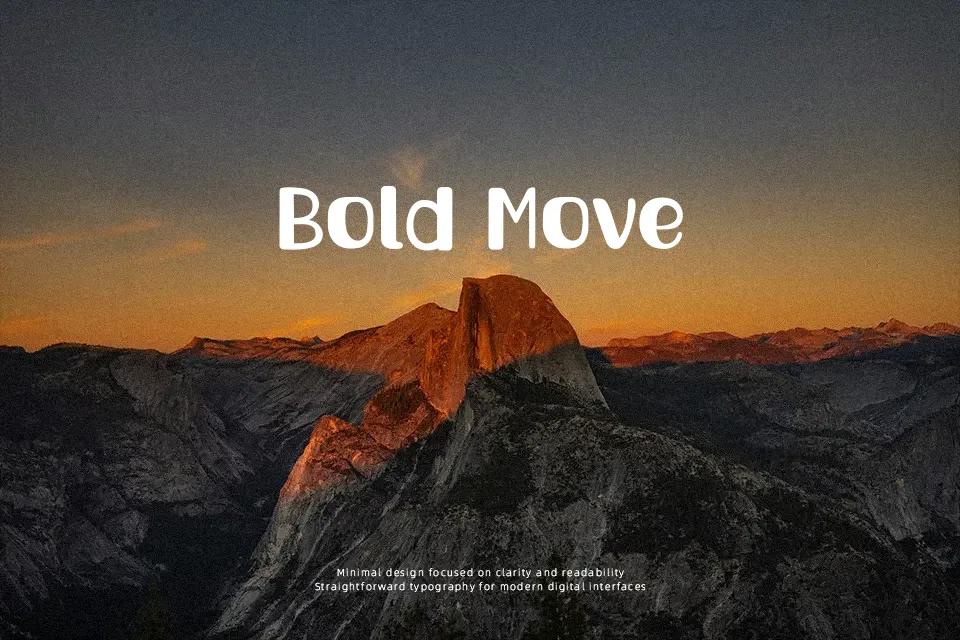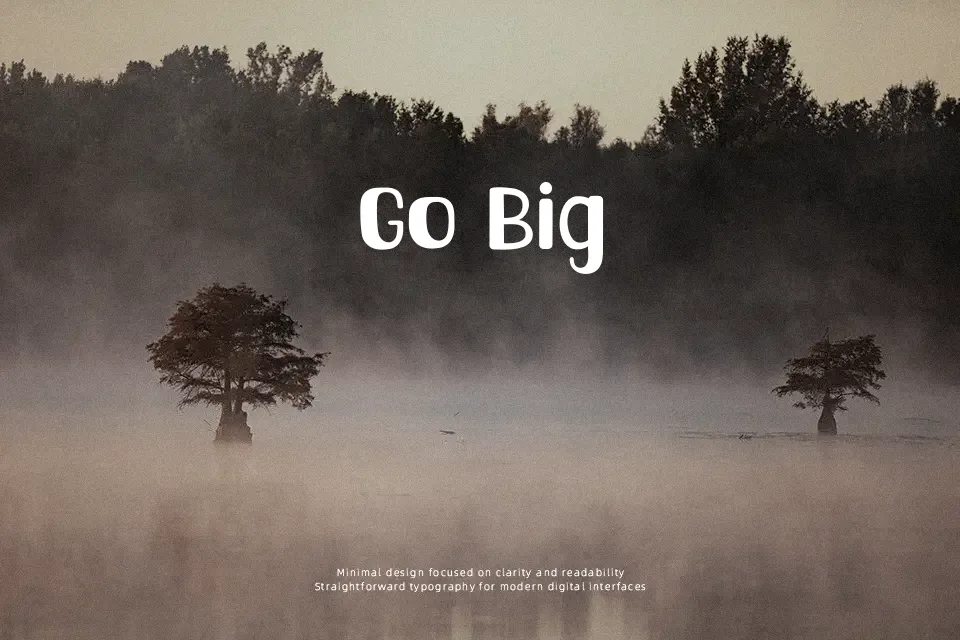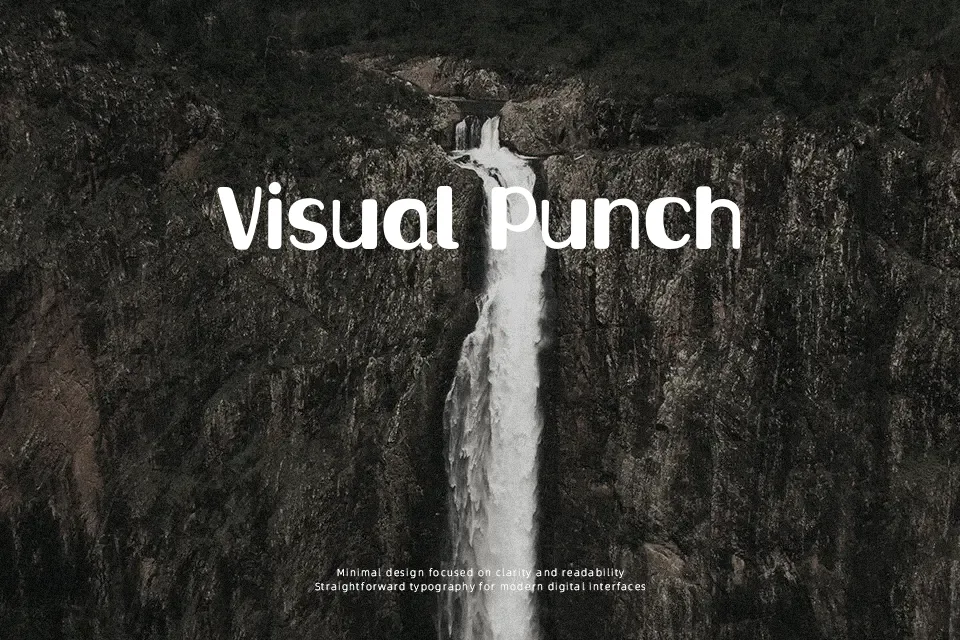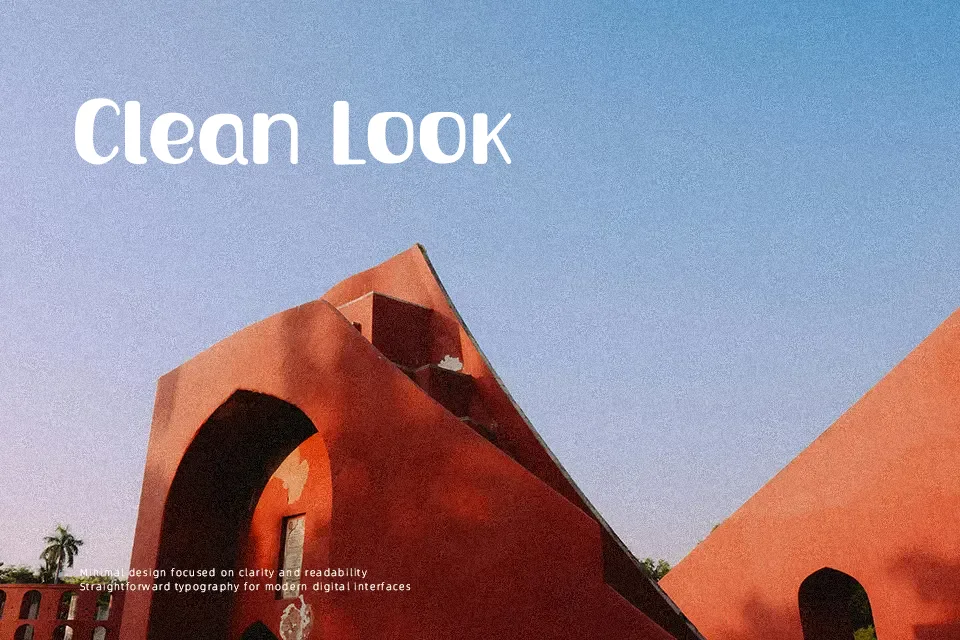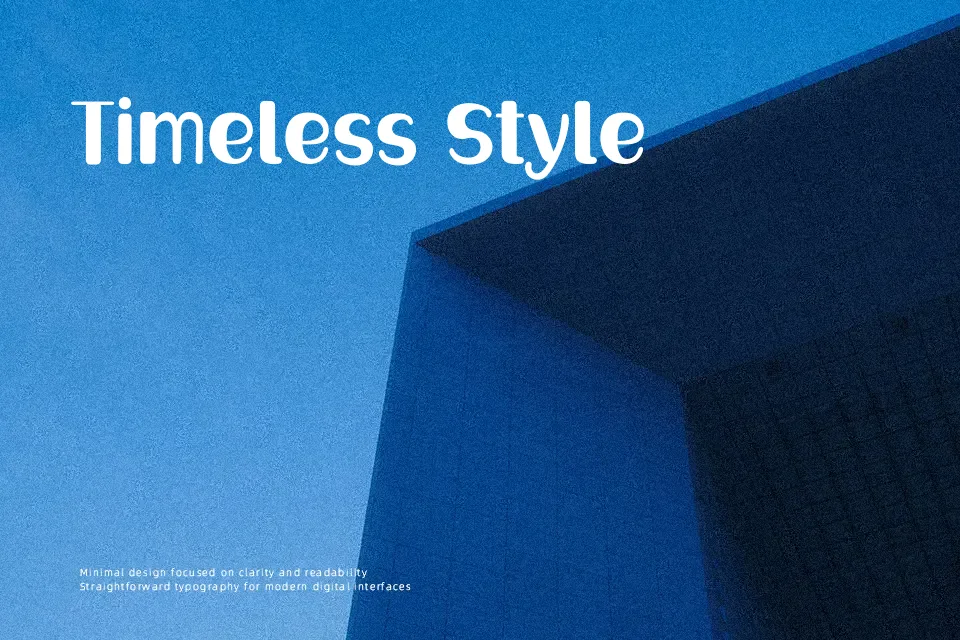
Bornywale Font
Bornywale Font leans into a bold, rounded cartoon look, with thick strokes, loose curves, and generous counters that keep the letters easy to read even at larger sizes. The shapes feel bouncy and slightly exaggerated, so text comes across as noisy, youthful, and a bit dramatic rather than neat or restrained. It works well when you want to shout a message on kids’ posters, playful branding, thumbnails, or character-driven packaging where the type can take center stage. For long paragraphs, minimalist branding, or serious corporate work, the personality quickly becomes too loud and can distract from the content, so I would reserve it for short, expressive headlines.
kids event posters and banners
youthful product or snack packaging
cartoon or game thumbnails and social graphics
playful headlines on flyers or school projects
body text or long reading passages
formal corporate or editorial branding
minimalist luxury identities
interfaces that need very small text sizes
Perfect for gaming, logo, and packaging, with a artistic and cartoon style.